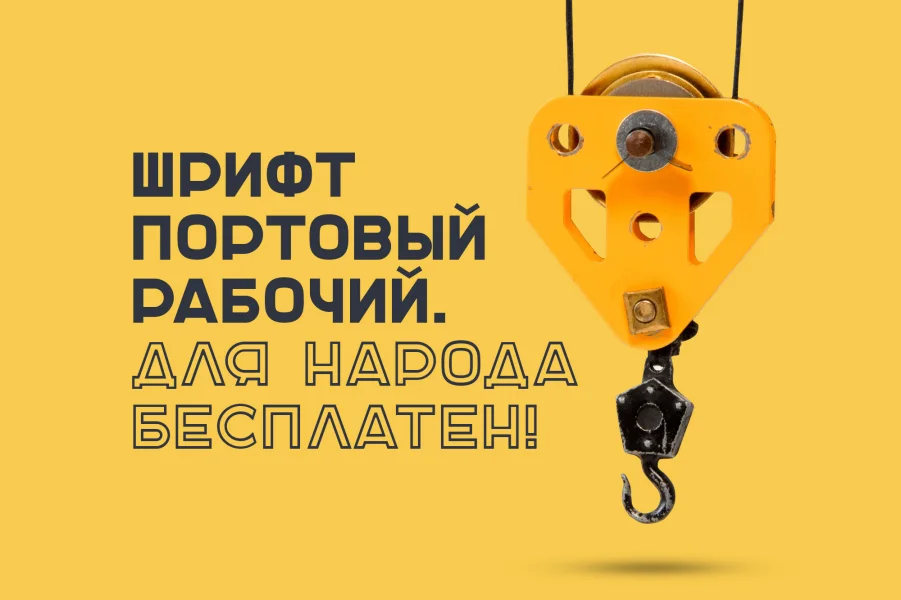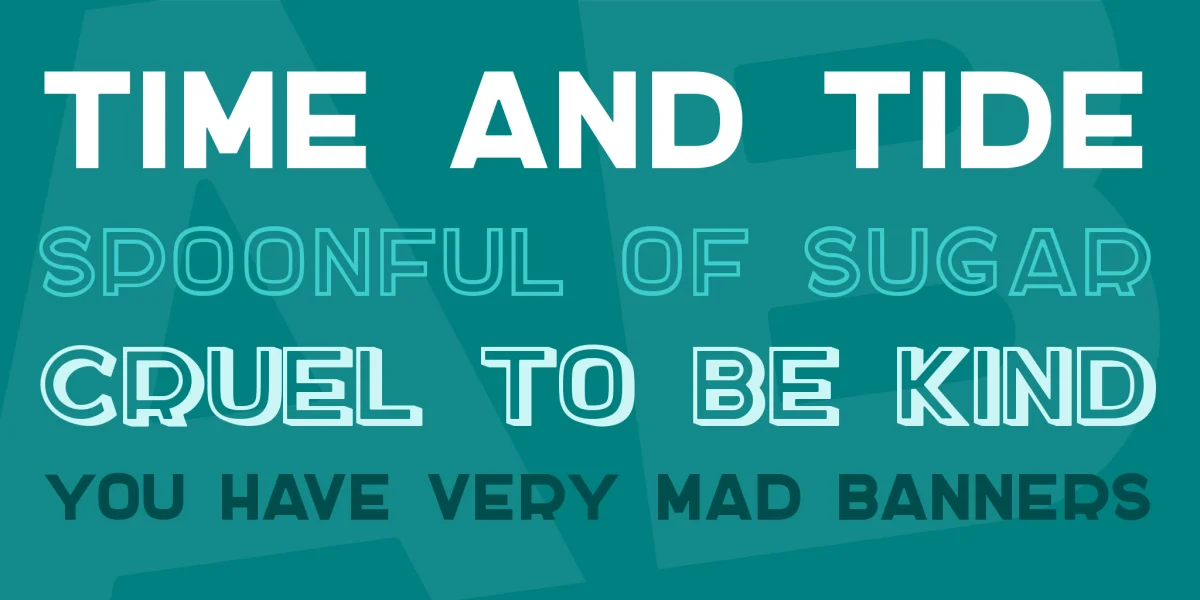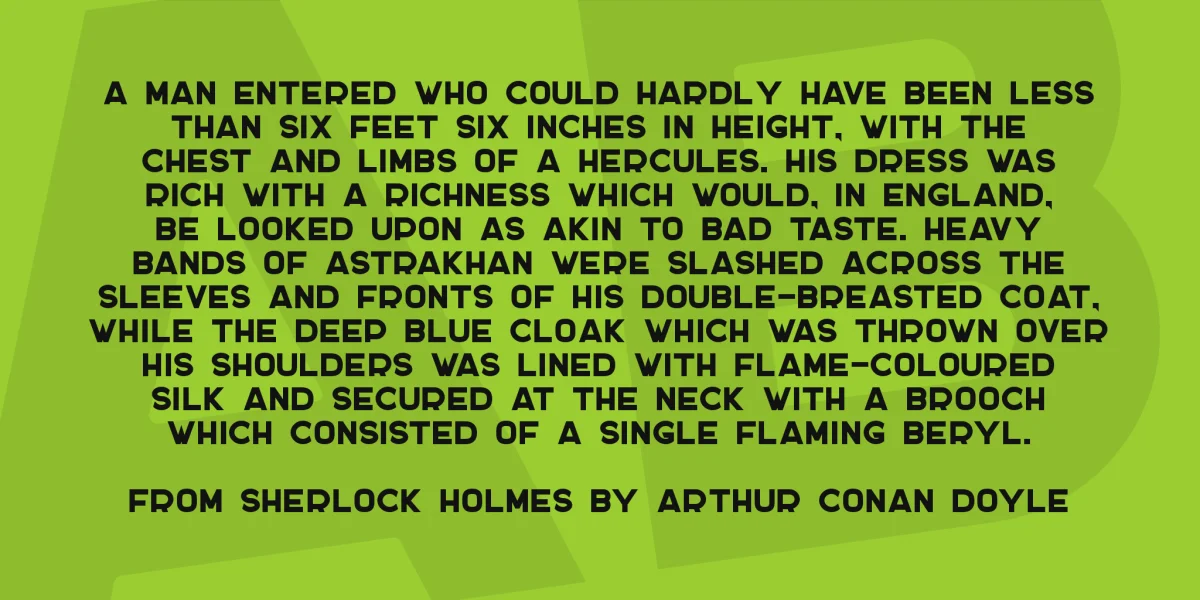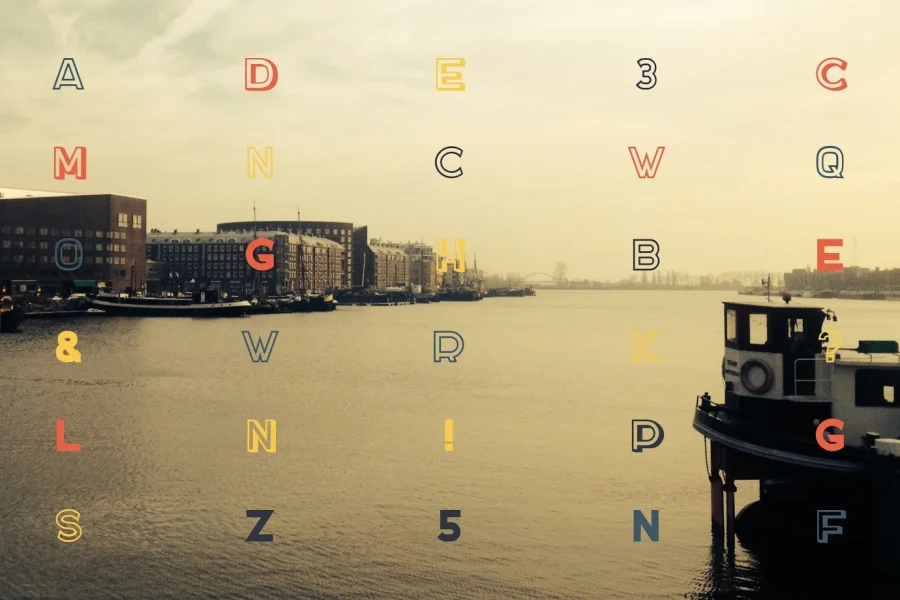
Docker: free set of three fonts. Docker is uppercase sans-serif font in 3 styles: One - regular, Two - inline, Three - pseudo-3d. You can mix all three types with different colors and get some nice result. There are basic latin glyphs, cyrillic (ru, ua, by), numbers and some needful symbols. Free for personal and commercial use. DOWNLOAD and enjoy, I hope Docker will be usefull to you! More info at behance.net.